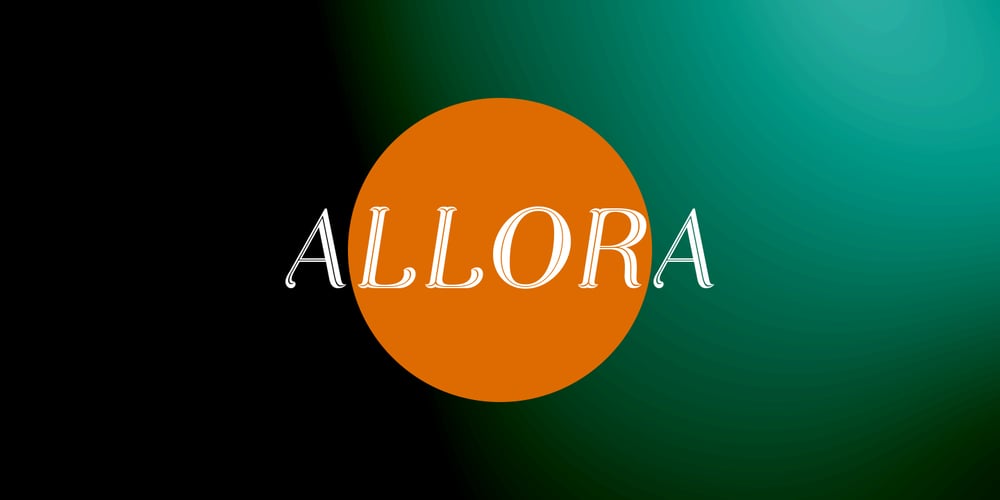
Allora Font Family was designed by Alex Etewut and published by Etewut. Allora contains 4 styles and family package options. Allora is a serif based typeface with three font styles: regular, display, hair and double. Mix them as you want: integrate Allora to your website, create mobile app or just make an awesome print. Enjoy it!